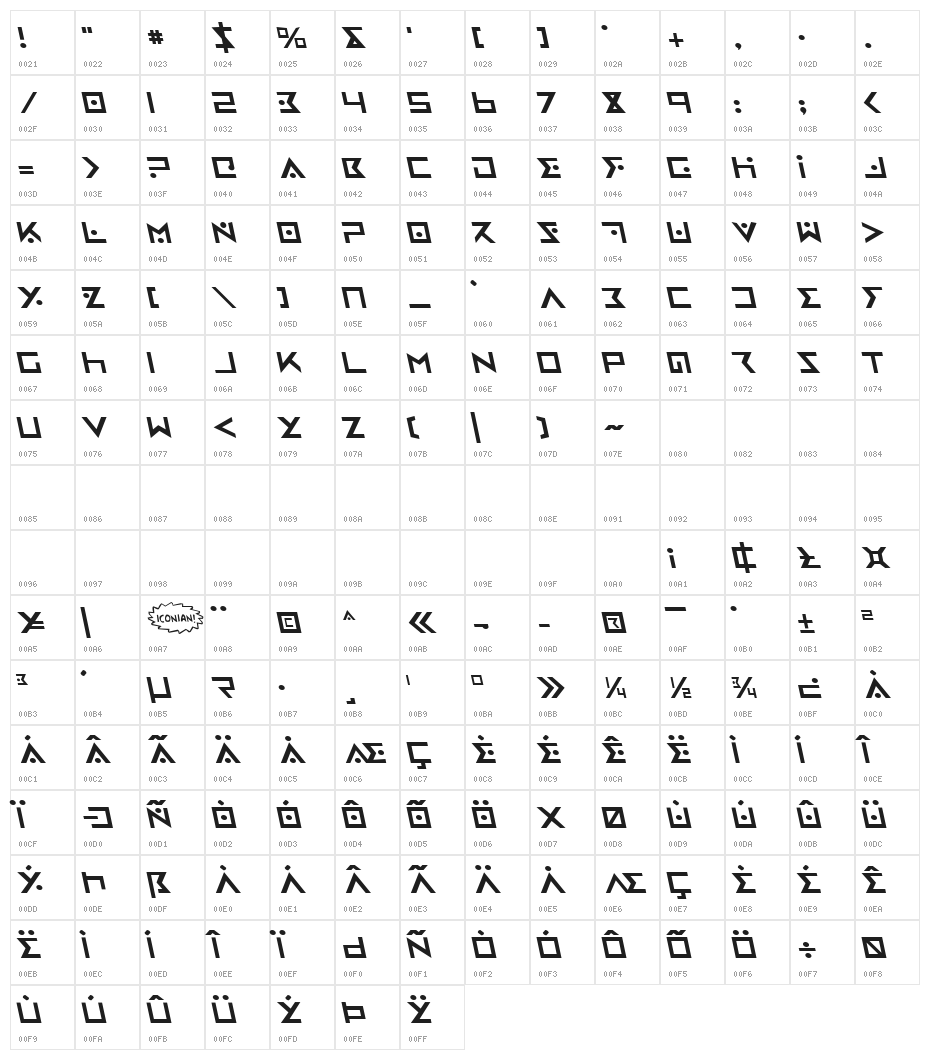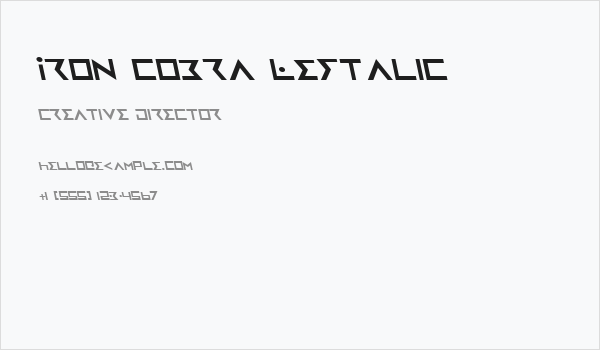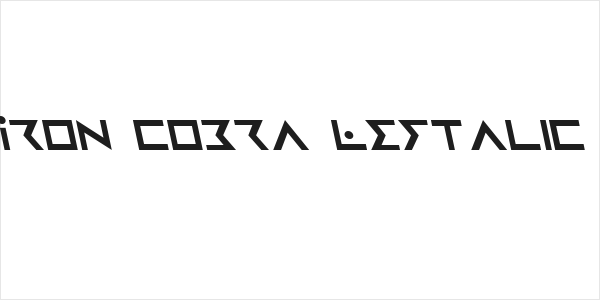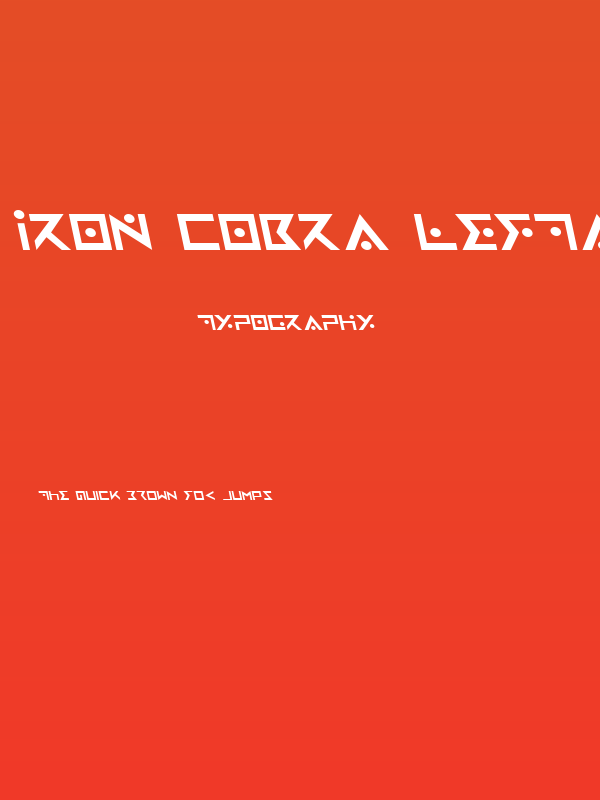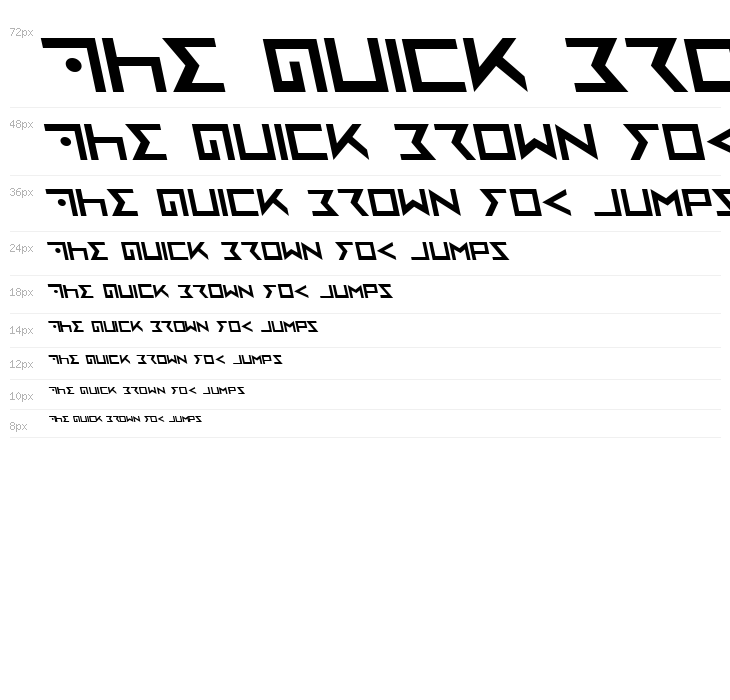
Iron Cobra Leftalic Font
Iron Cobra Leftalic Description
This font features a bold and geometric design, characterized by sharp angles and a futuristic aesthetic. Each character is constructed with a combination of straight lines and triangular elements, giving it a unique, edgy appearance. The uppercase and lowercase letters maintain a consistent style, with distinct angular cuts and a uniform thickness throughout. Numbers and special characters follow the same design principles, ensuring a cohesive look across all elements. The font's style is reminiscent of digital or sci-fi themes, making it suitable for projects that require a modern and unconventional typeface.
| Overall Style | Futuristic, Edgy |
| Proposed Projects | Ideal for sci-fi themed designs, video game titles, technology branding, and modern posters. |